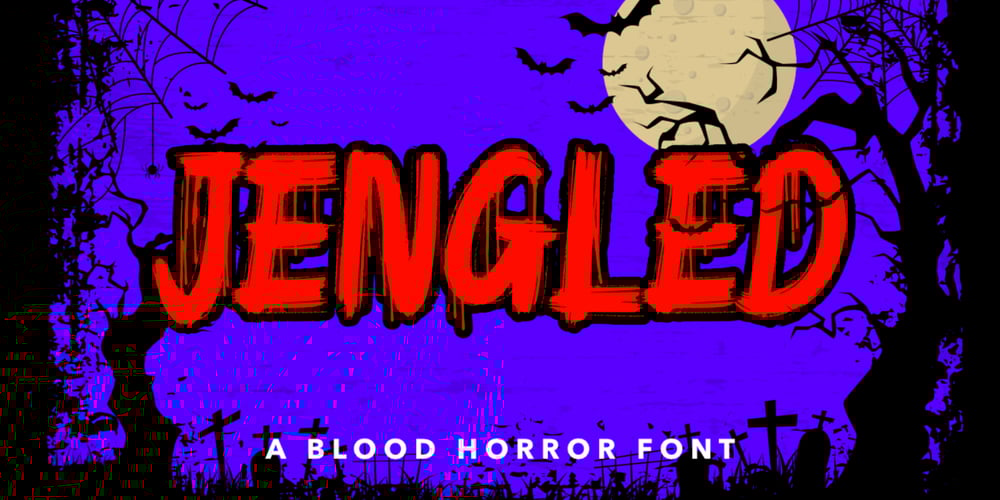
Jengled Font Family was designed by Bayu Aji Fais Mursid and published by Bayuktx. Jengled contains 1 styles and family package options. Jengled a Blood Horror Font, This font is made with a high premium quality level which you can use as flyers, quotes, posters, banners, packaging, merchandise, logotypes and much more.FEATURES :* Uppercase* Lowercase* Number* Punctuation* Multilingual* PUA Encode* OpentypeThank you